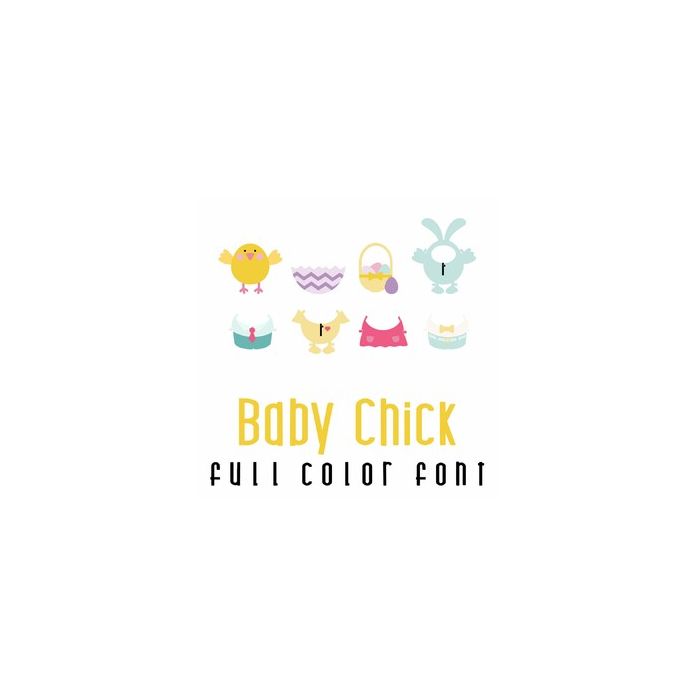
This adorable full-color doodlebat font features 26 items for a dress up chicken. Perfect for Easters, cards, crafts, gifts, decor, scrapbook pages, planner stickers, and more!